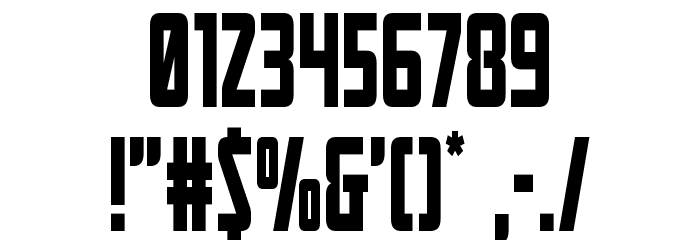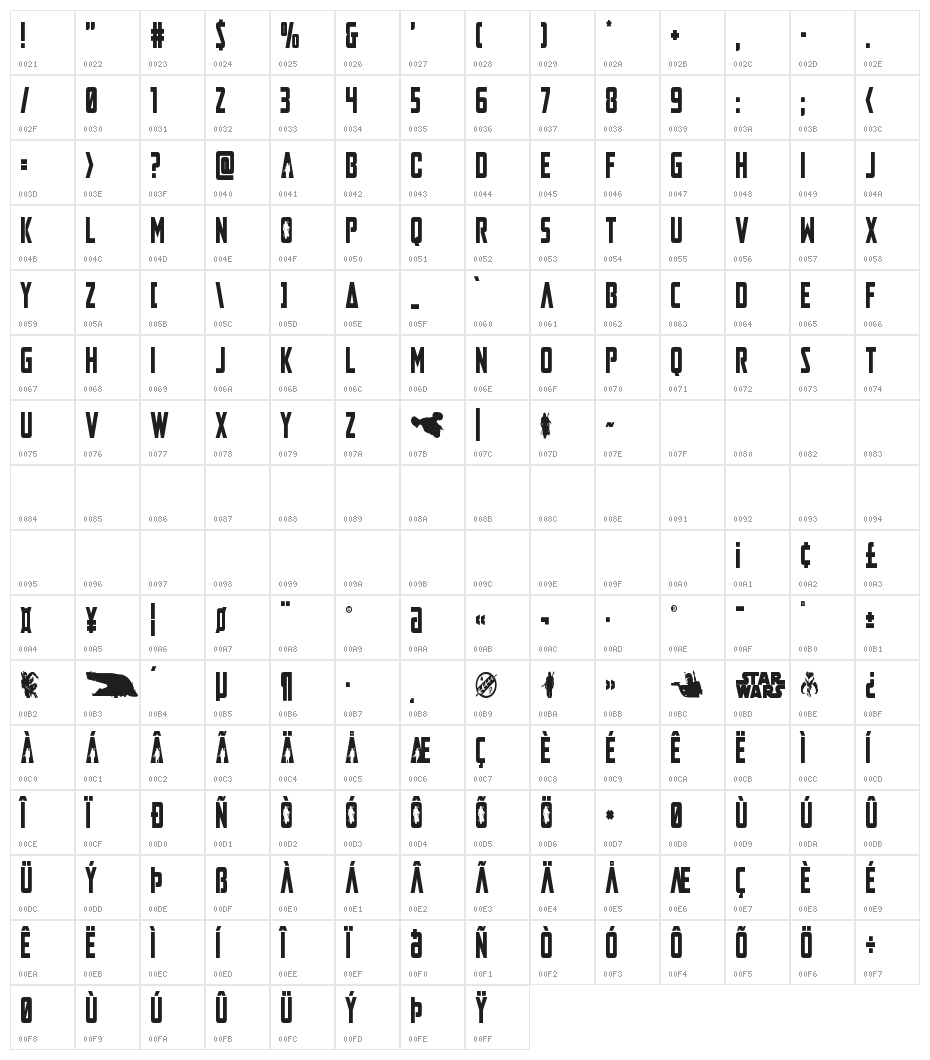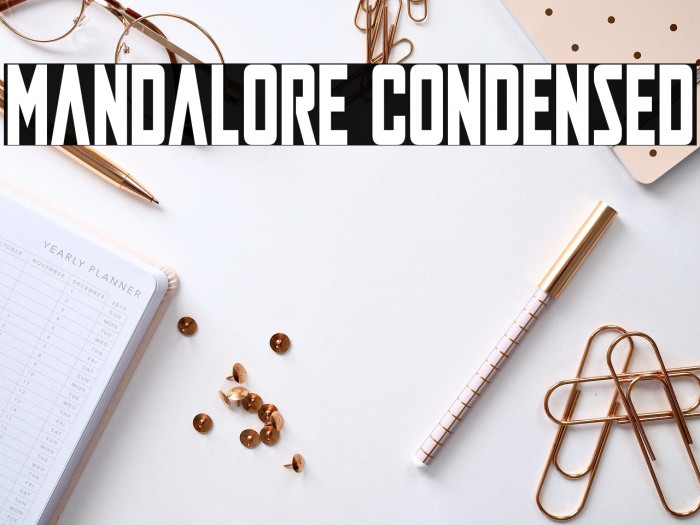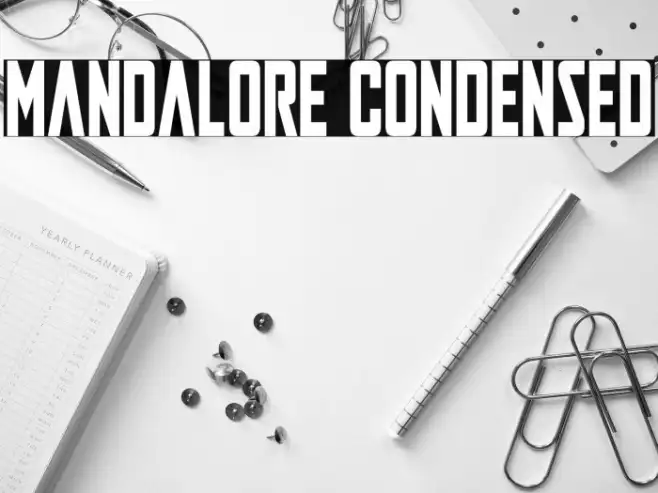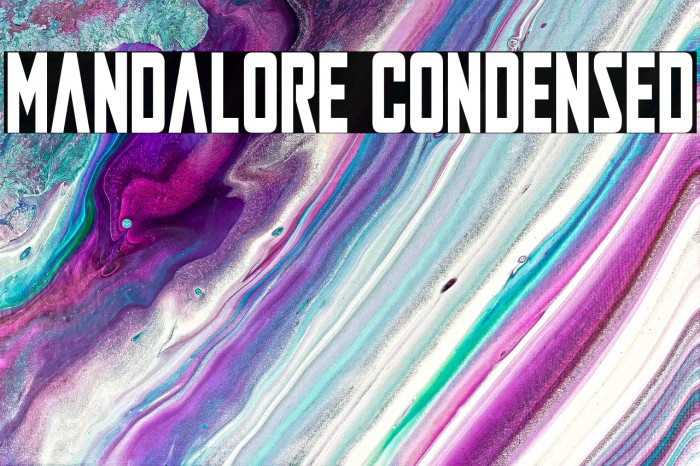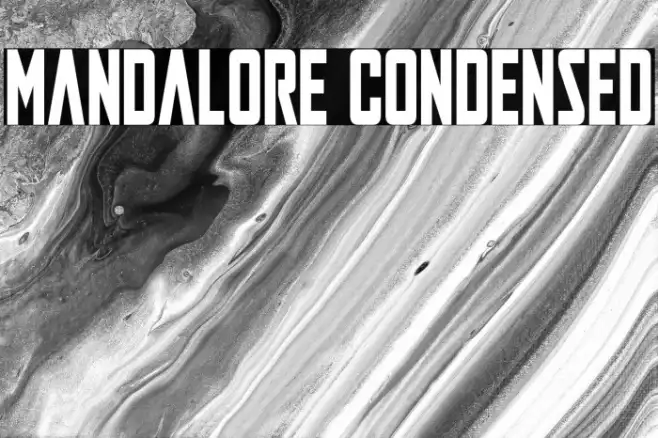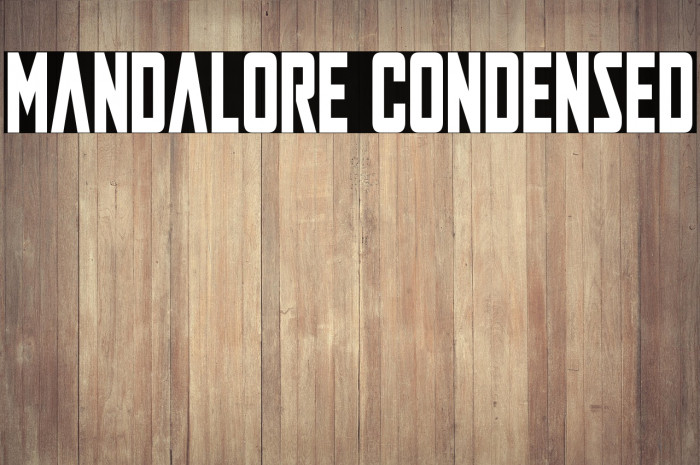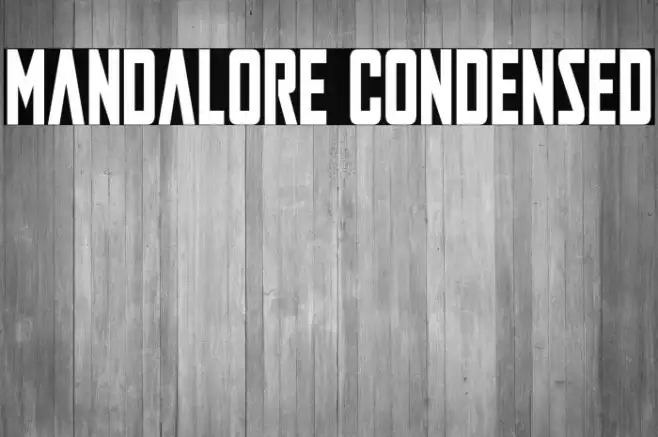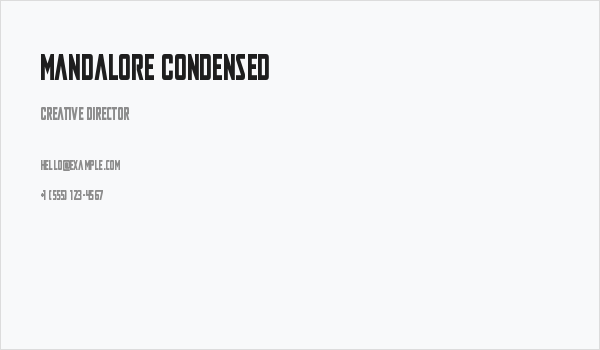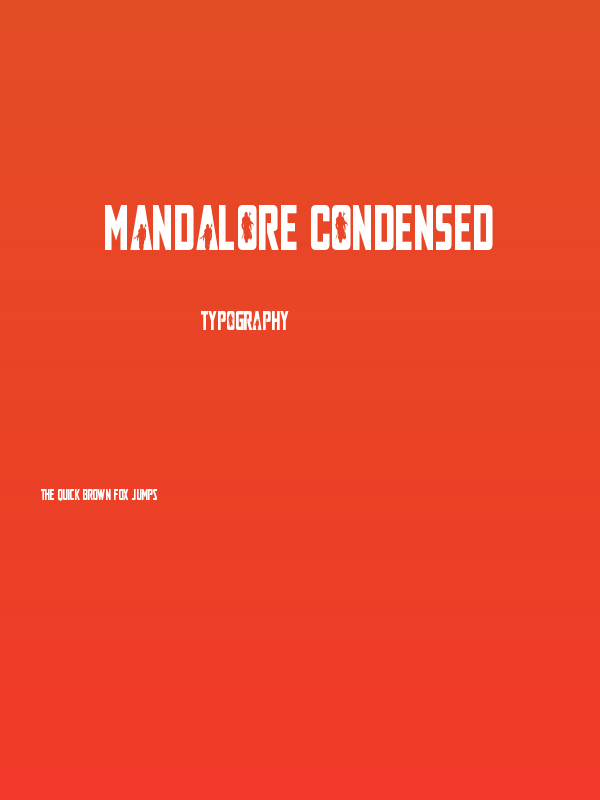
Mandalore Condensed Font
Mandalore Condensed Description
This font features a bold, condensed style with strong geometric shapes and sharp angles. The uppercase letters are tall and narrow, giving a sense of strength and modernity. The characters are uniformly aligned, maintaining a consistent height and width throughout. The numbers follow the same design principles, ensuring readability and cohesion. Special characters are designed to match the overall aesthetic, with a focus on clarity and impact. This font is ideal for projects that require a bold statement and a futuristic feel.